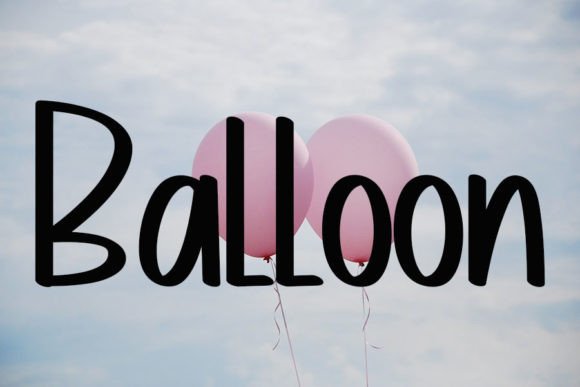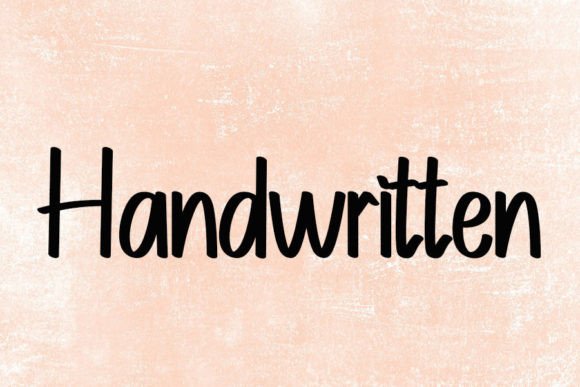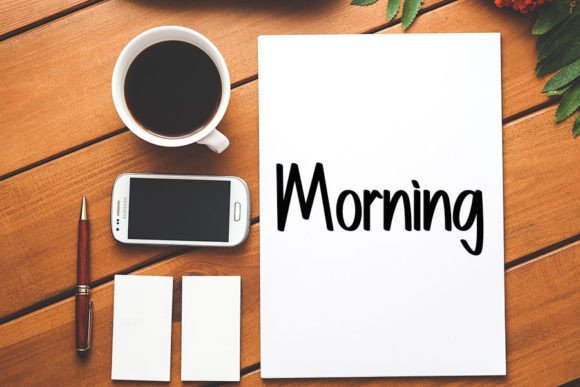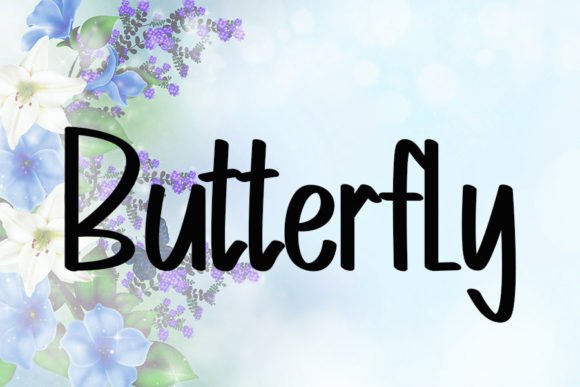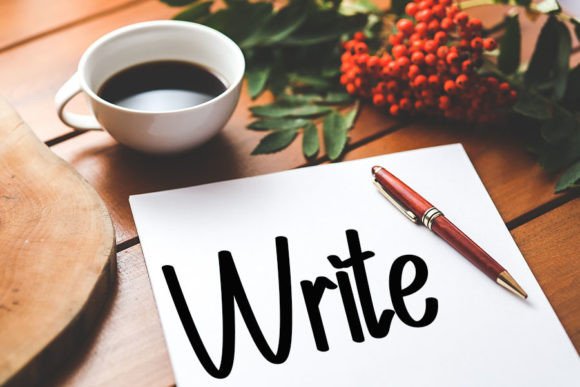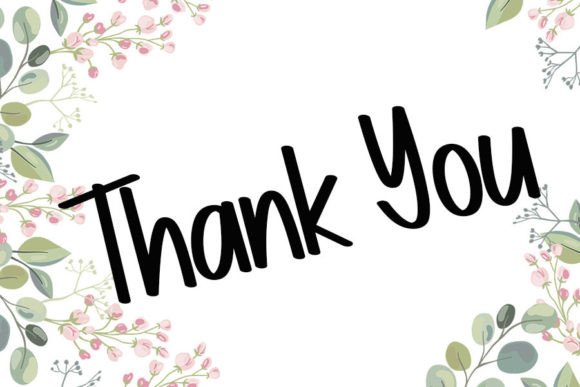
Introduction to Selfish Font
Selfishis a neat and beautiful handwritten font described by an elegant touch, perfect for your favorite projects Fall in love with its incredibly distinct and timeless style, and use it to create spectacular designs.
Key Features of Selfish Font
Why Choose Selfish Font?
Selfish Font offers exceptional quality and versatility, making it a valuable addition to your design toolkit. Whether you’re creating for personal projects or commercial use, Selfish Font delivers professional results.